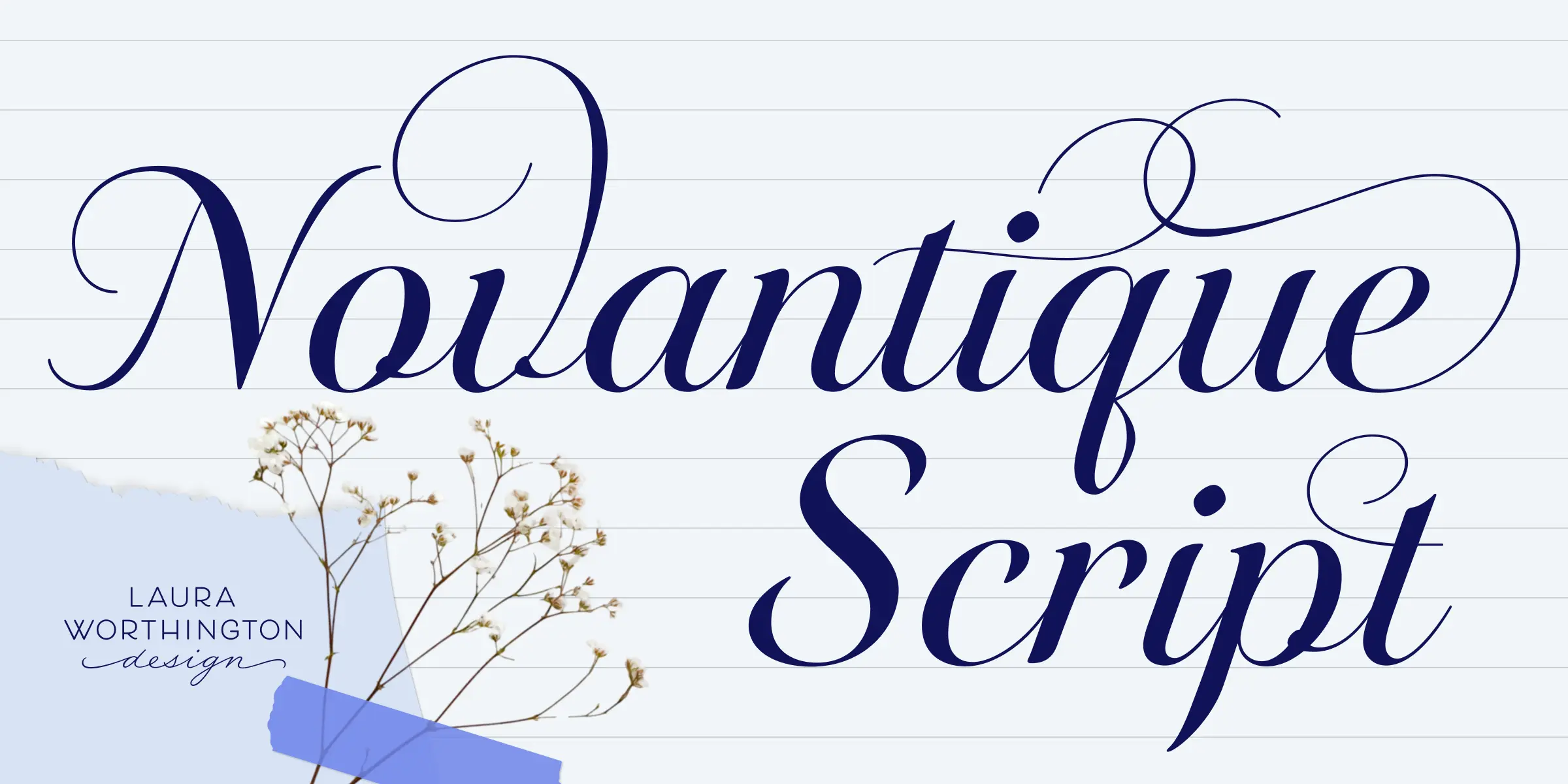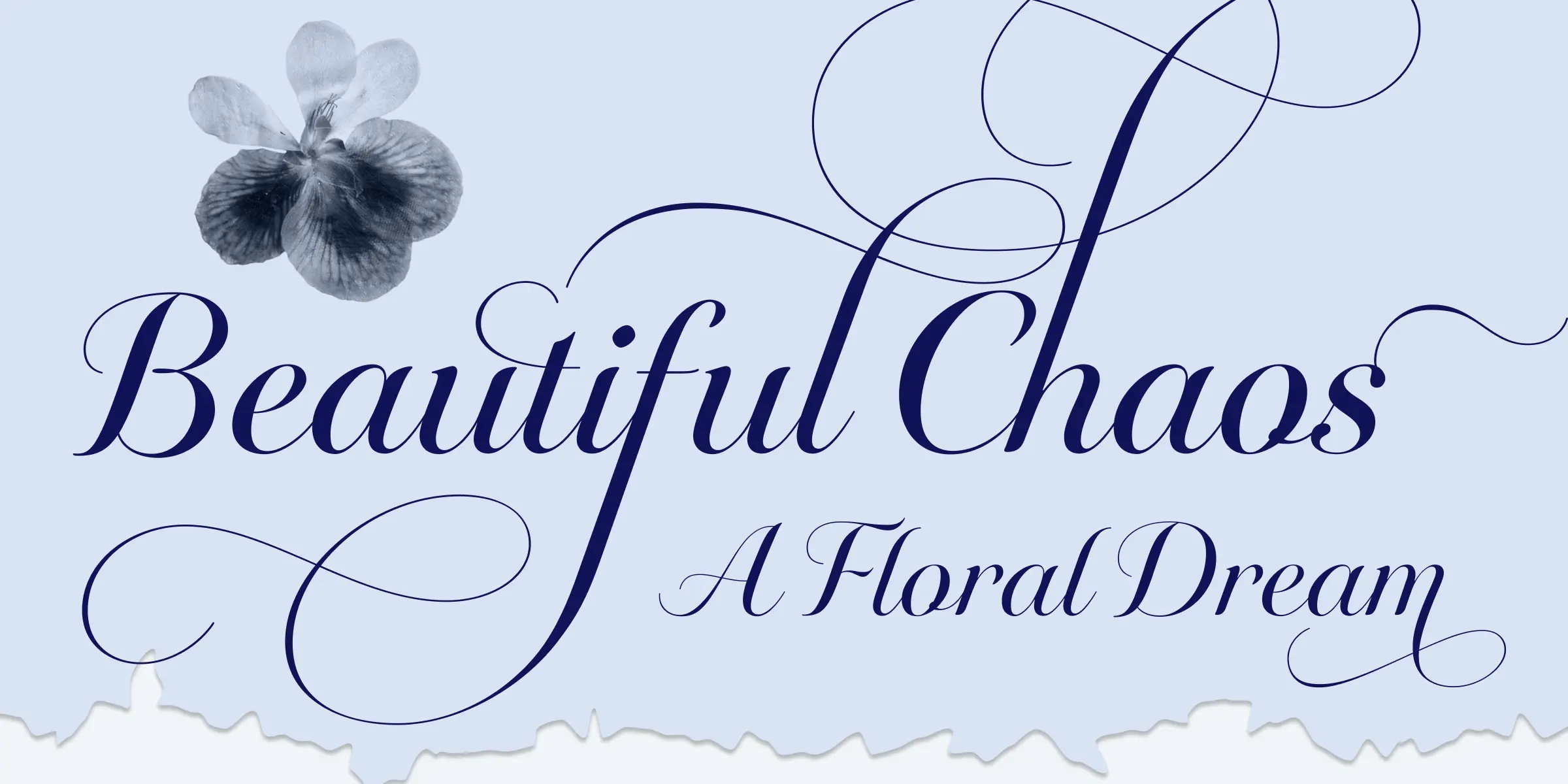
Novantique Script Light
Novantique Script
Novantique is a captivating collection of four distinct yet visually related families. The 22 styles together — Sans, Script, Serif Display, and Serif — represent elegance and modernity. All are ideal for creating an indelible solution for a richly layered editorial. Used individually or in combination, these typefaces were designed to grace your front covers, headlines, sections, ledes, text, and bylines. Try Novantique; the opportunities for experimentation are endlessly enticing.